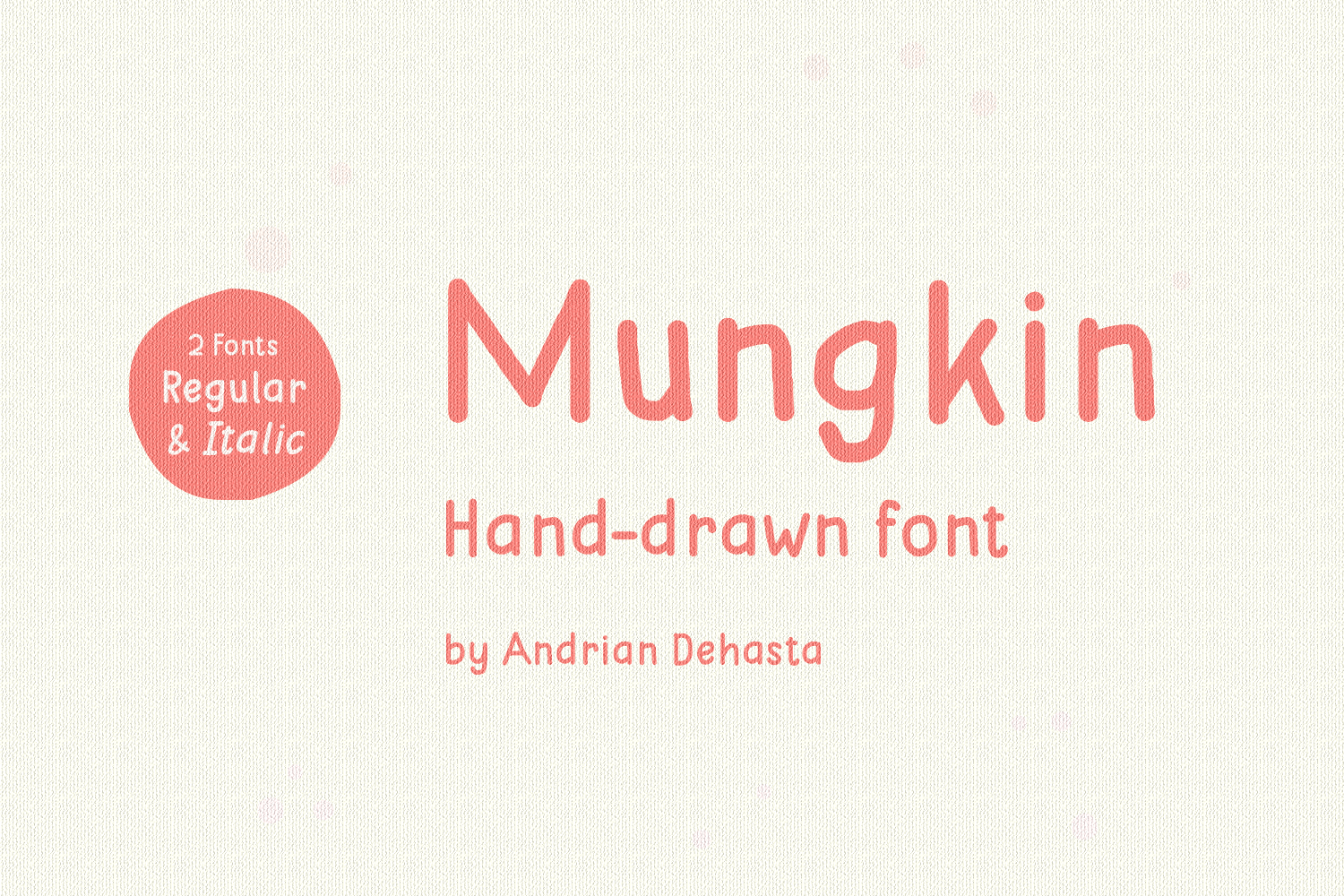
Mungkin Font
About Mungkin Font
Mungkin is a sweet and youthful looking font.  With rounded edges and solid lines, Mungkin looks great as a headline or display font, but is also suitable in smaller scales for easily readible text.